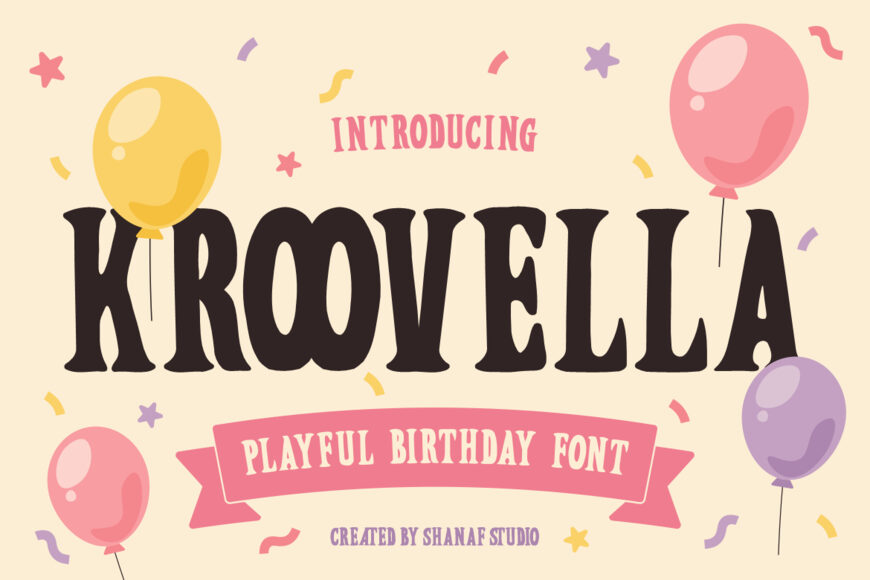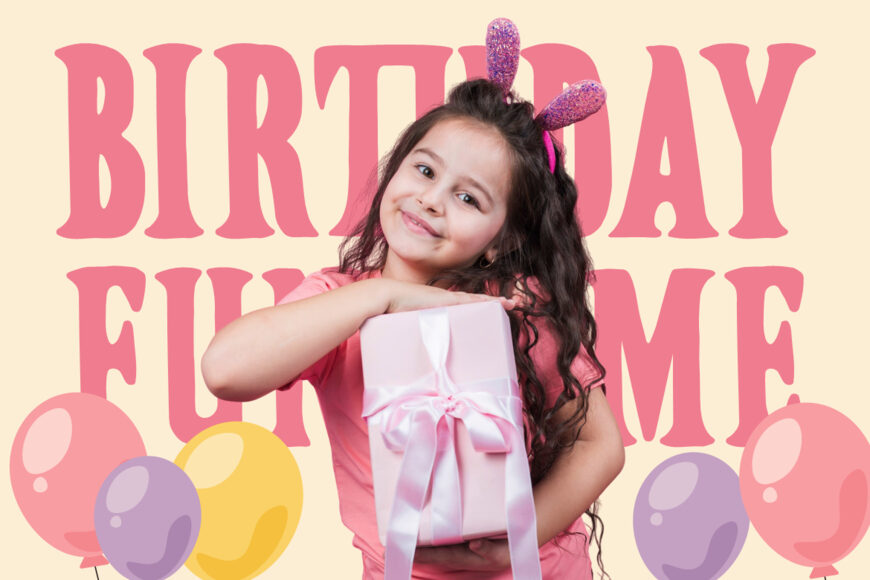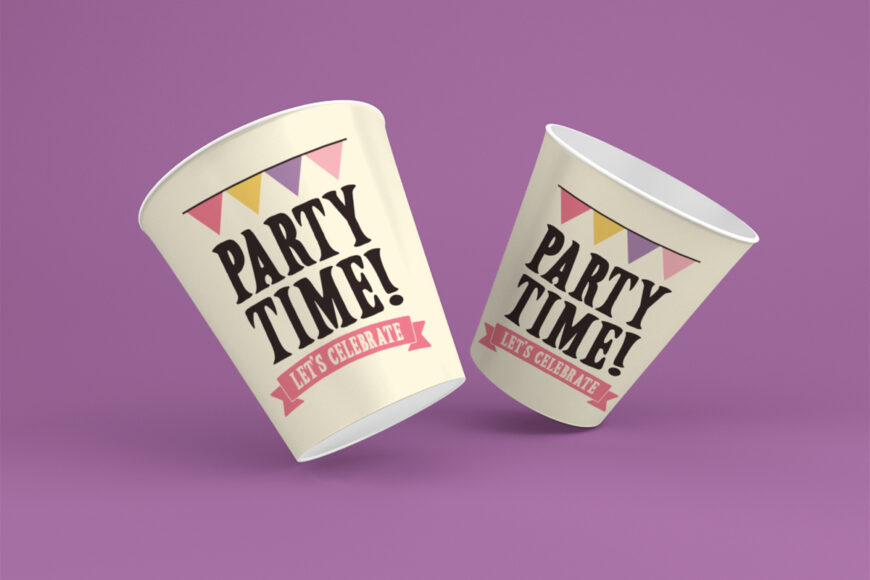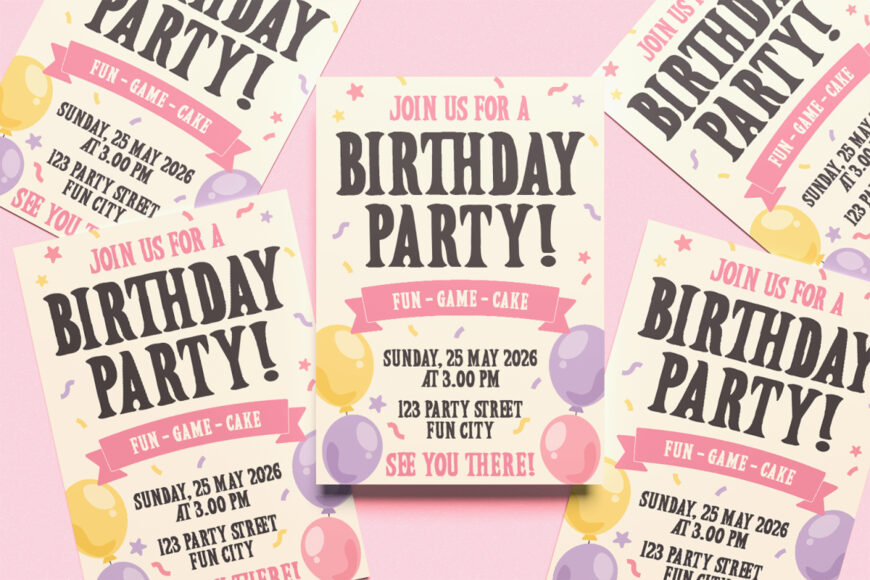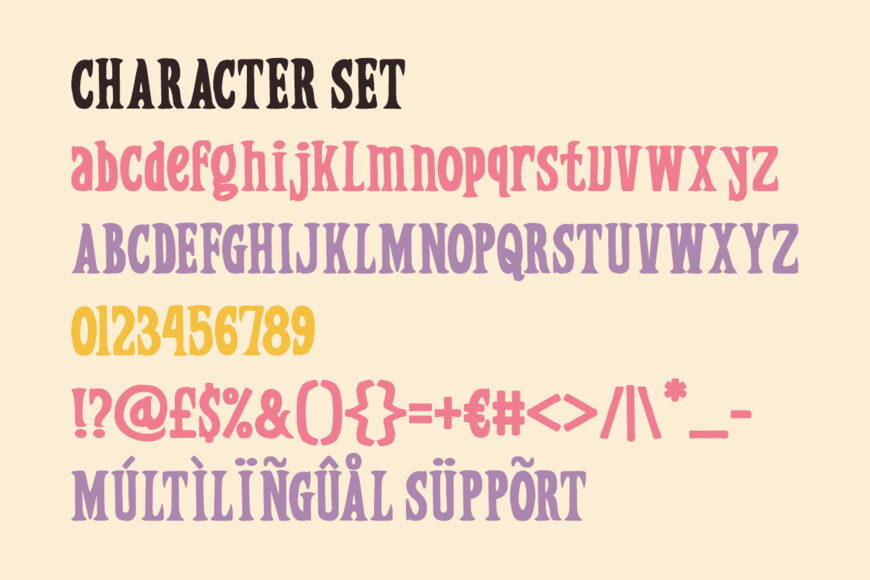
Kroovella Playful Birthday Font brings a cheerful, festive spirit to any design with bold, decorative lettering and a lively personality. Rounded curves, playful proportions, and gentle ornamental details create a friendly, welcoming style, while subtle character variations add movement and energy.
Blending classic celebration aesthetics with modern commercial appeal, Kroovella suits invitations, greeting cards, posters, packaging, advertising, stickers, social media graphics, website banners, book covers, event materials, crafts, promotional products, and more.